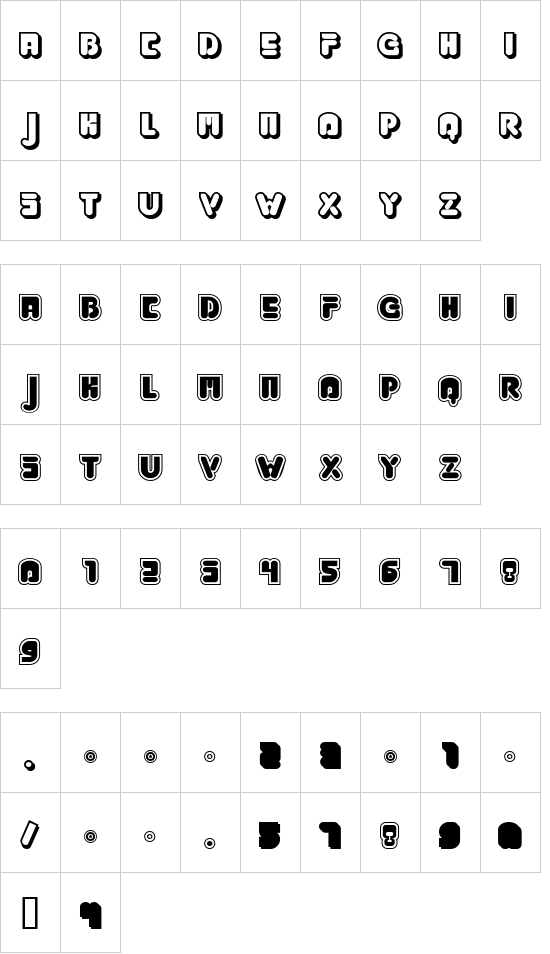
Jabbie Junior
About Jabbie Junior
Jabbie Junior is a playful display font with bouncy, casual letterforms that feel friendly and youthful. The rounded, slightly uneven shapes bounce along the line with a cheerful, hand-drawn spirit that reads as warm and fun.